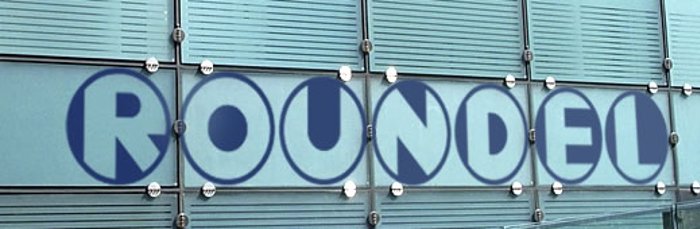
Roundel Font
Roundel is a paradoxical, modern heraldic typeface. It is a display face of simple, angular and curved shapes, with each main glyph contained within a circle.